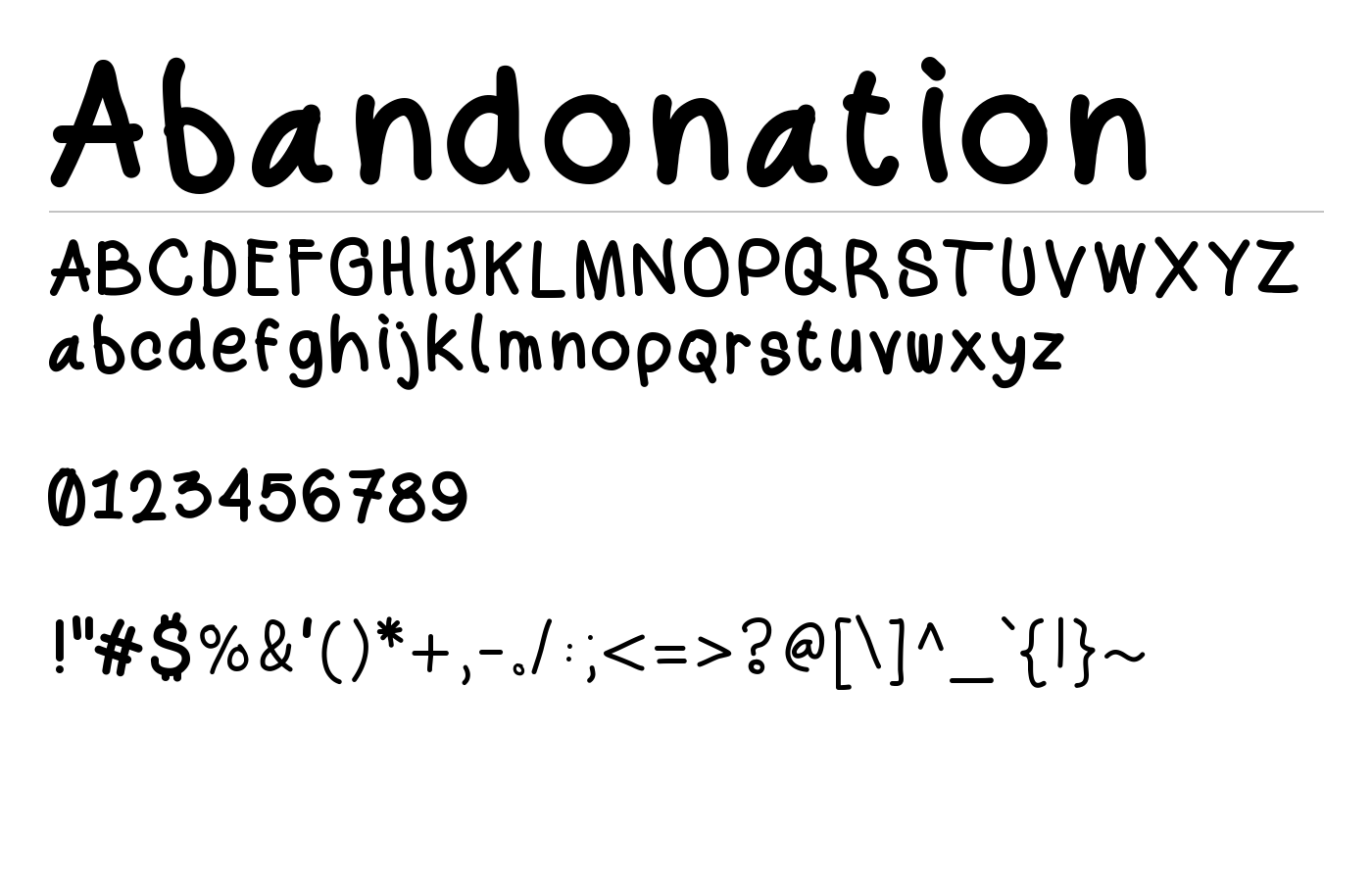
Abandonation is a playful, casual handwritten sans serif font with a friendly and informal vibe. Featuring uneven strokes, slight irregularities, and a lively rhythm, it offers a warm, approachable feel that works well for creative, youthful designs, children's products, and personal projects. Its legible, relaxed style makes it perfect for headlines, invitations, and branding where a touch of personality and charm is desired.
Abandonation Font
About Abandonation Font